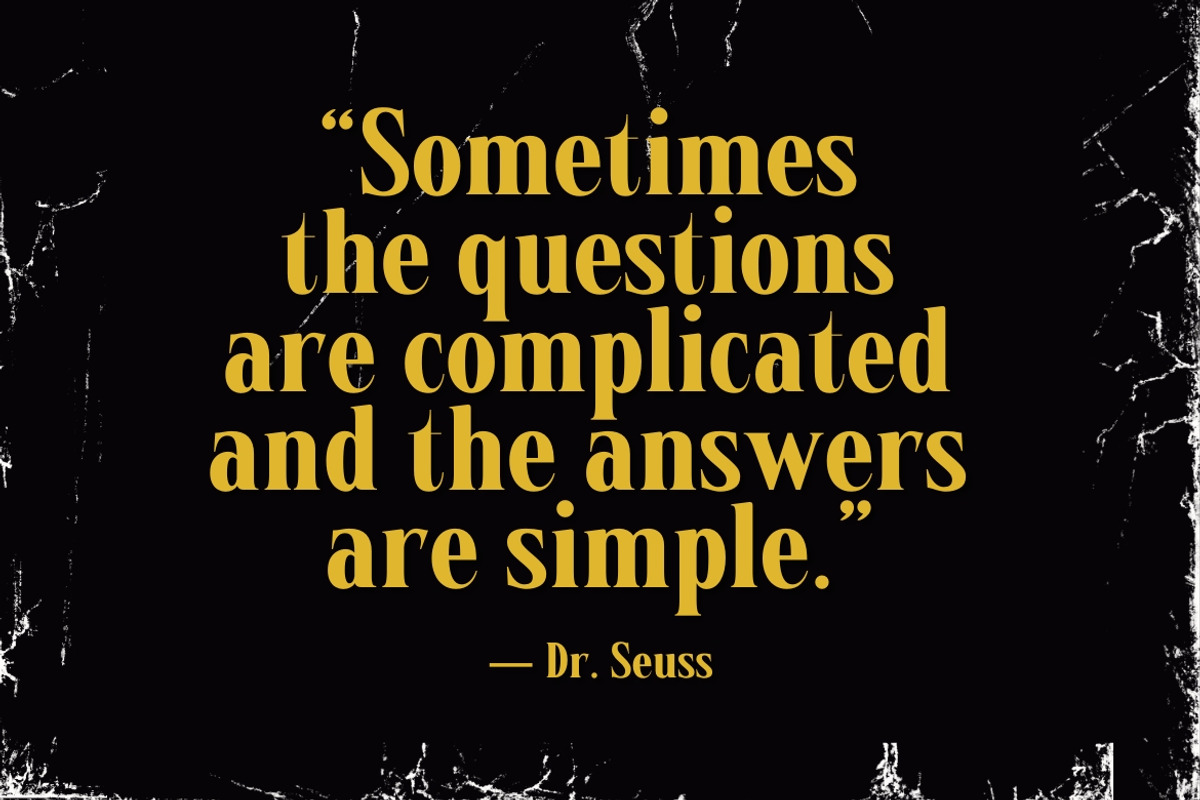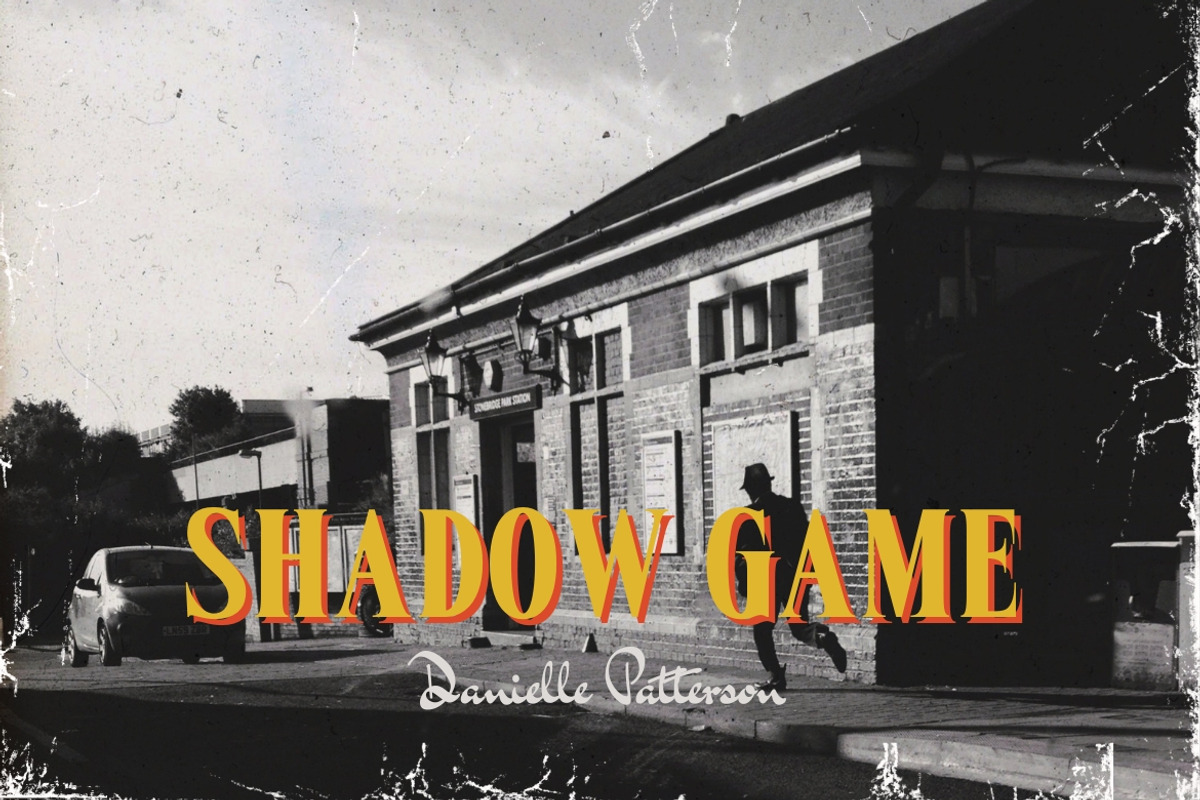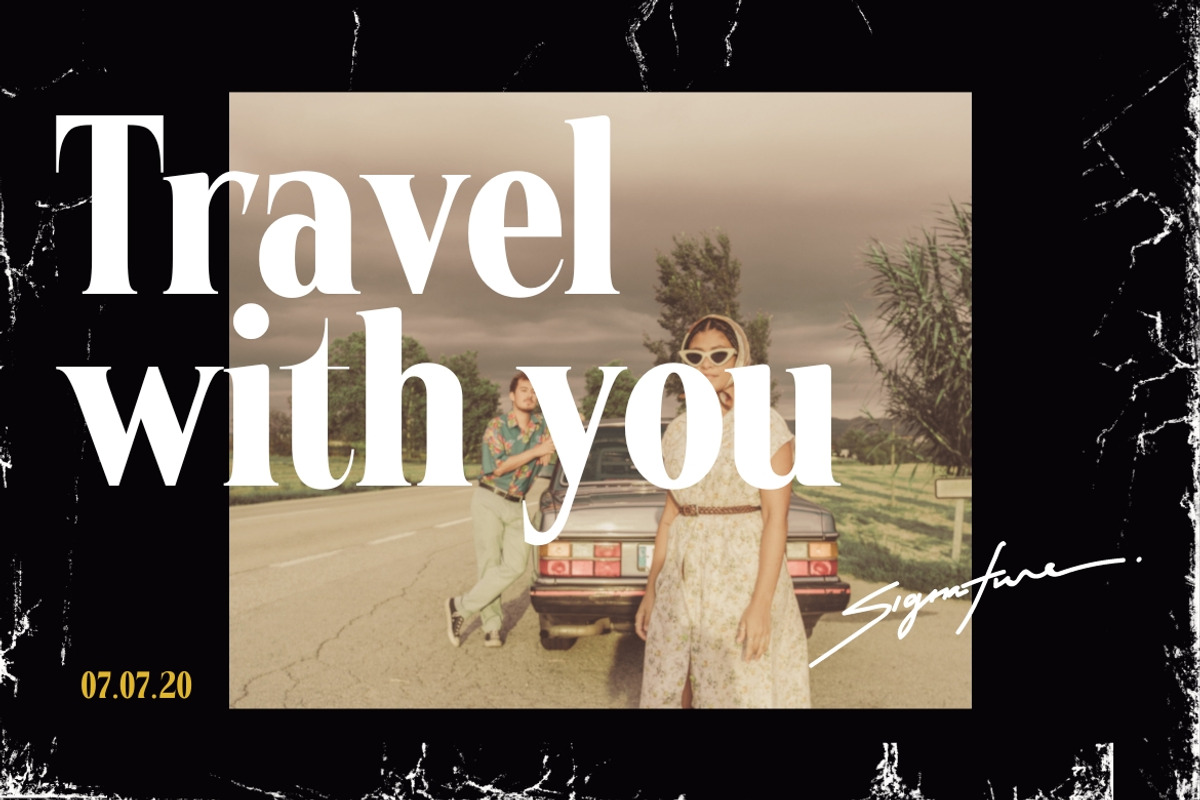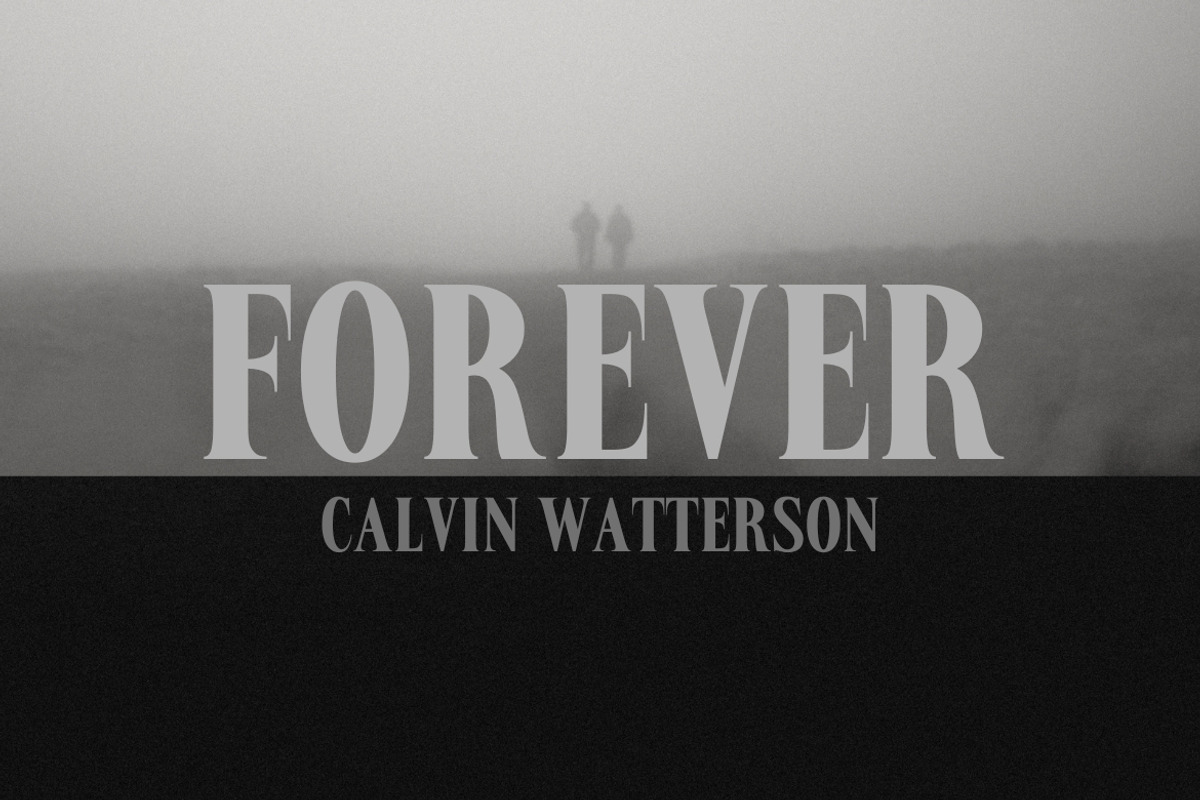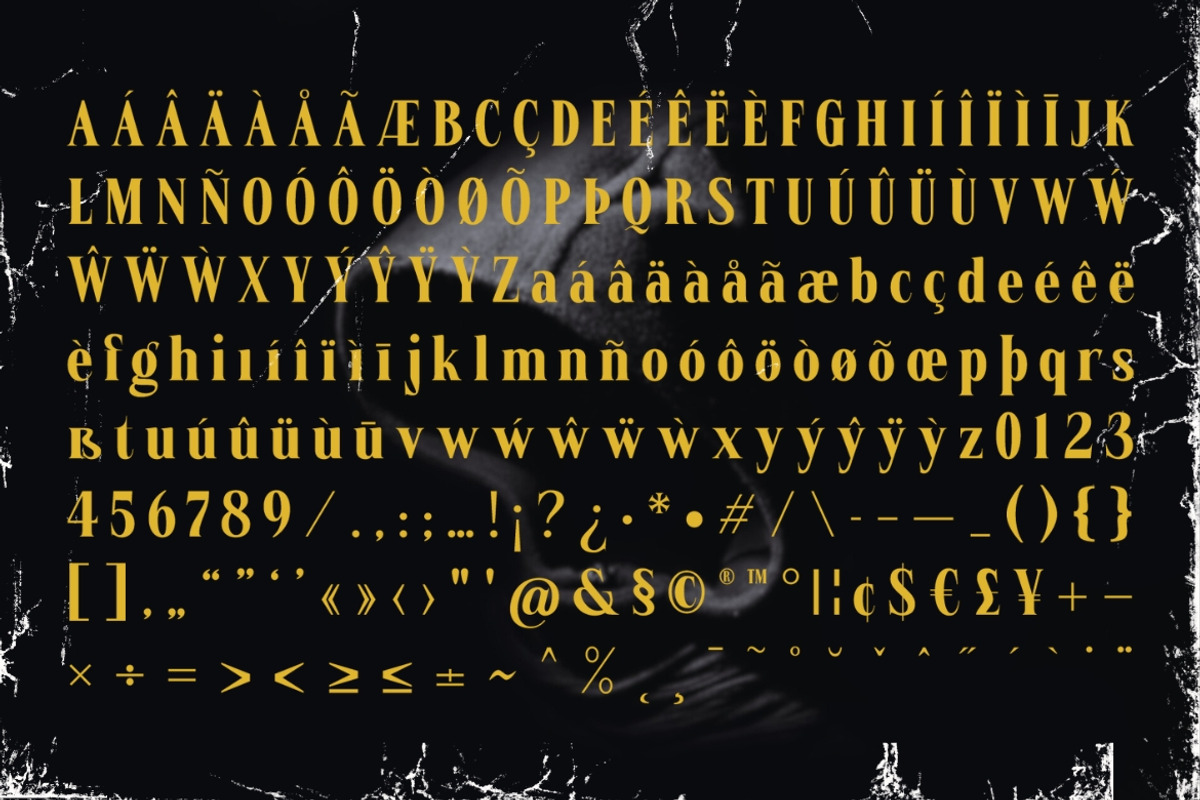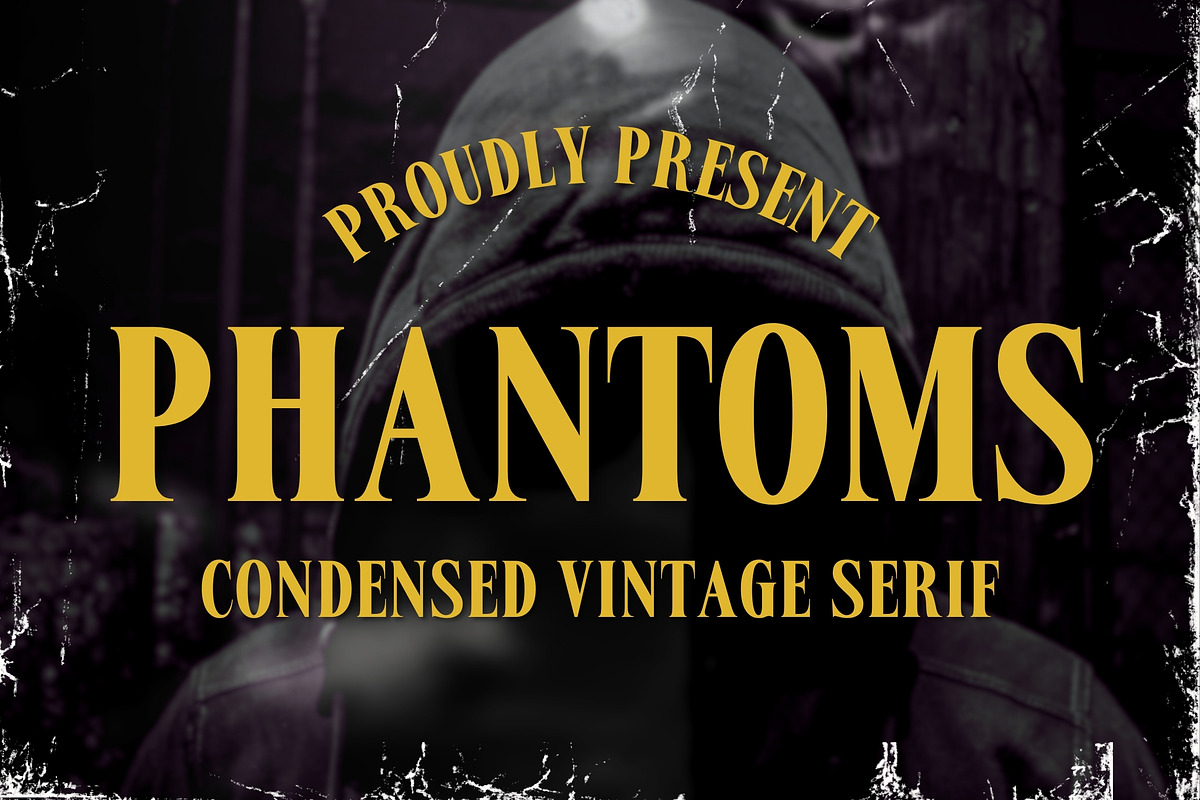
Phantoms - Condensed Vintage Serif
Introducing our new Phantoms, Condensed Vintage Serif font with elegant style this is perfect for branding, logos, invitation, magazines, product packaging and more.